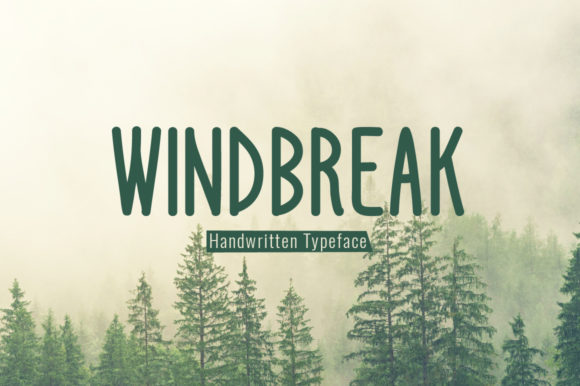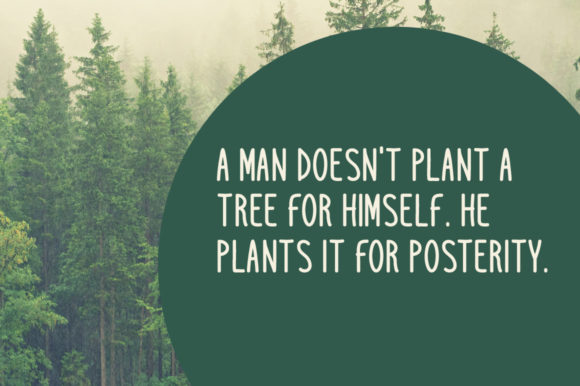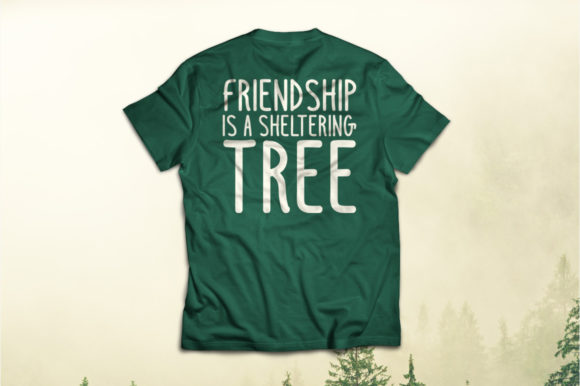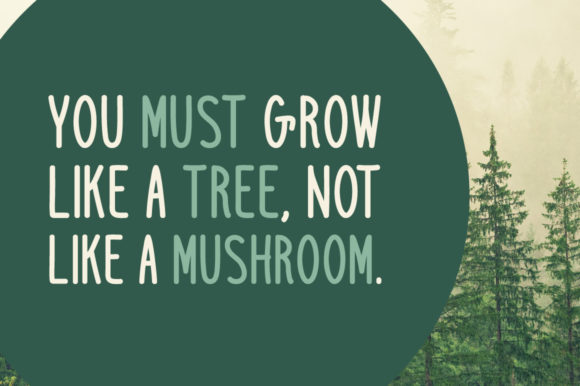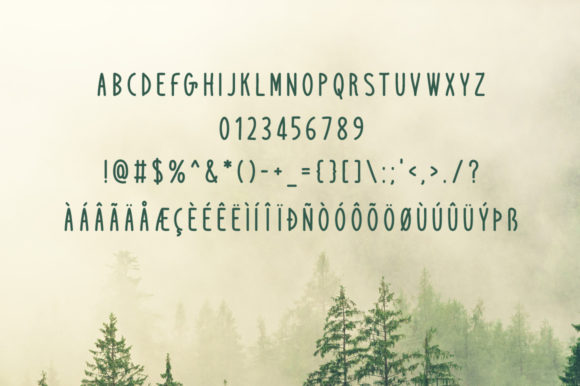
Windbreak Font
About Windbreak Font
The Windbreak is an amazing handwritten font. It has a striking look and a great readability.
It can be used for logos, t-shirts, papers, print designs, website headers, photo frames, flyers, music covers, posters, image sliders and much more.